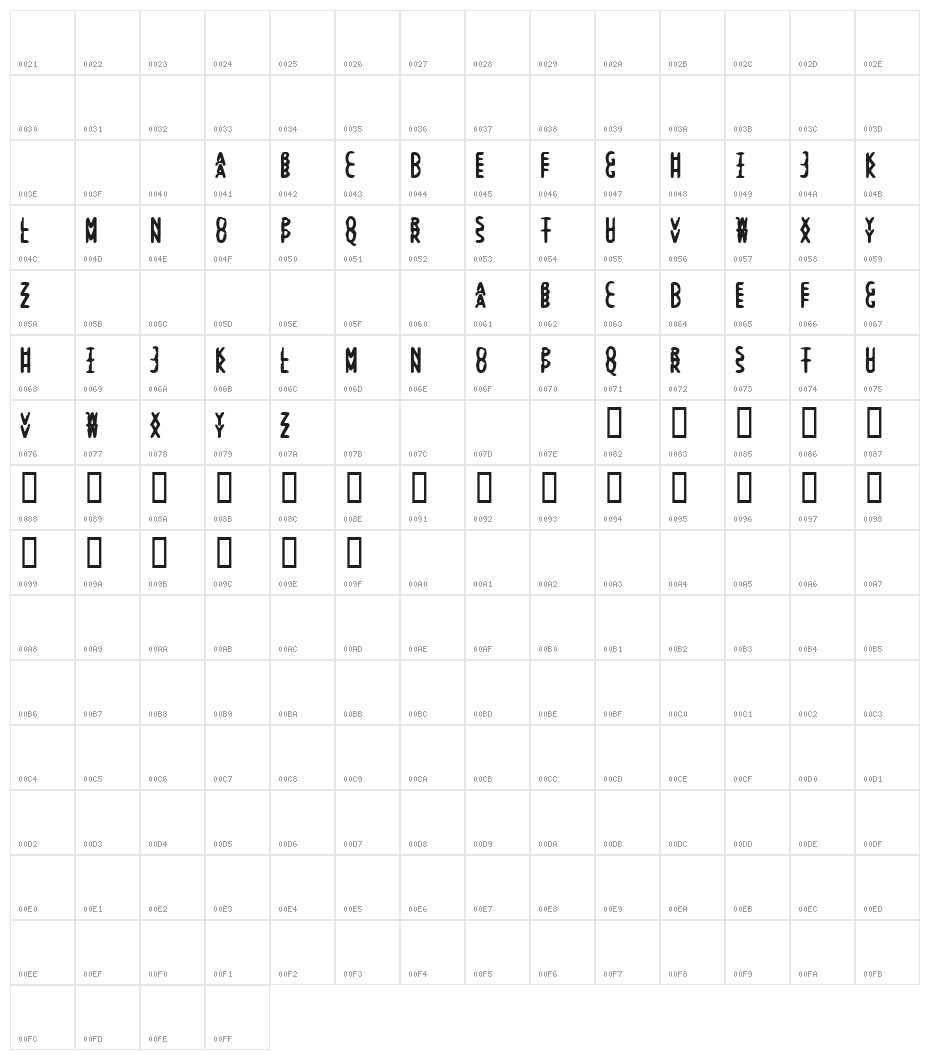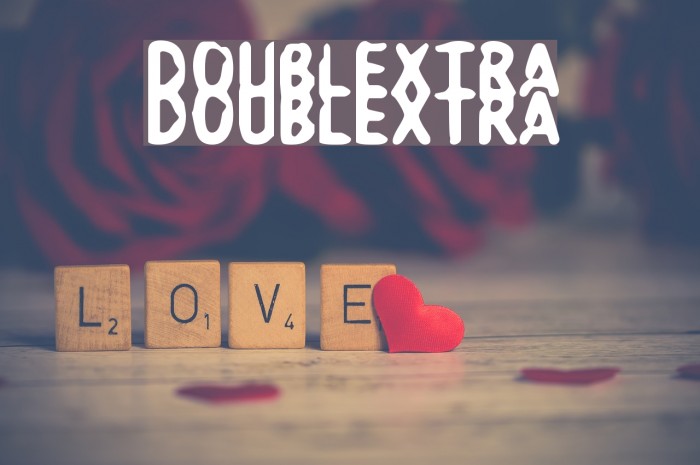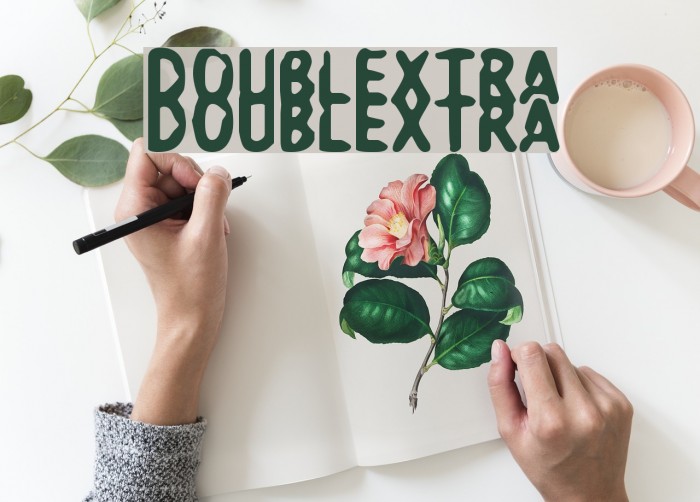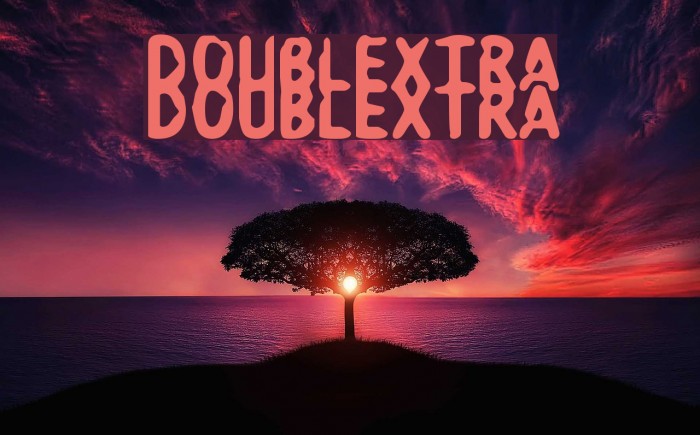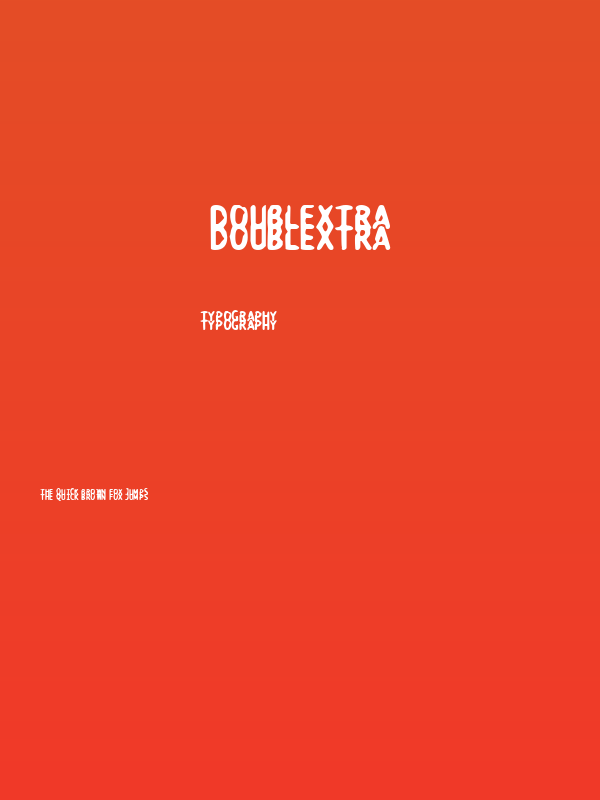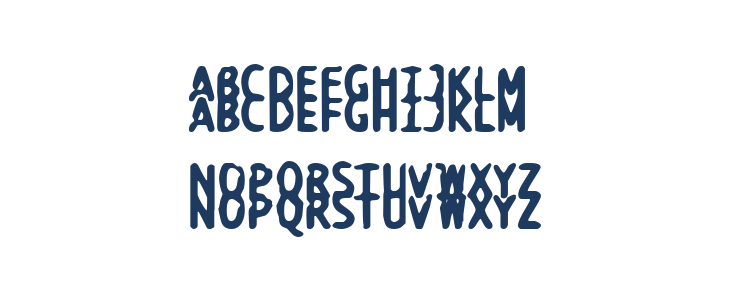
Doublextra Font
Doublextra Description
This font features a unique, bold style with a playful and decorative appearance. The letters are characterized by a double-layered effect, creating a sense of depth and movement. The strokes are thick and rounded, giving the font a friendly and approachable feel. The uppercase letters are particularly striking, with a consistent width and a slightly condensed form. The overall design is modern and eye-catching, making it suitable for creative and artistic projects. The font's distinctive style is ideal for capturing attention and conveying a sense of fun and creativity.
| Proposed Projects | Ideal for posters, logos, children's books, and creative branding projects. |